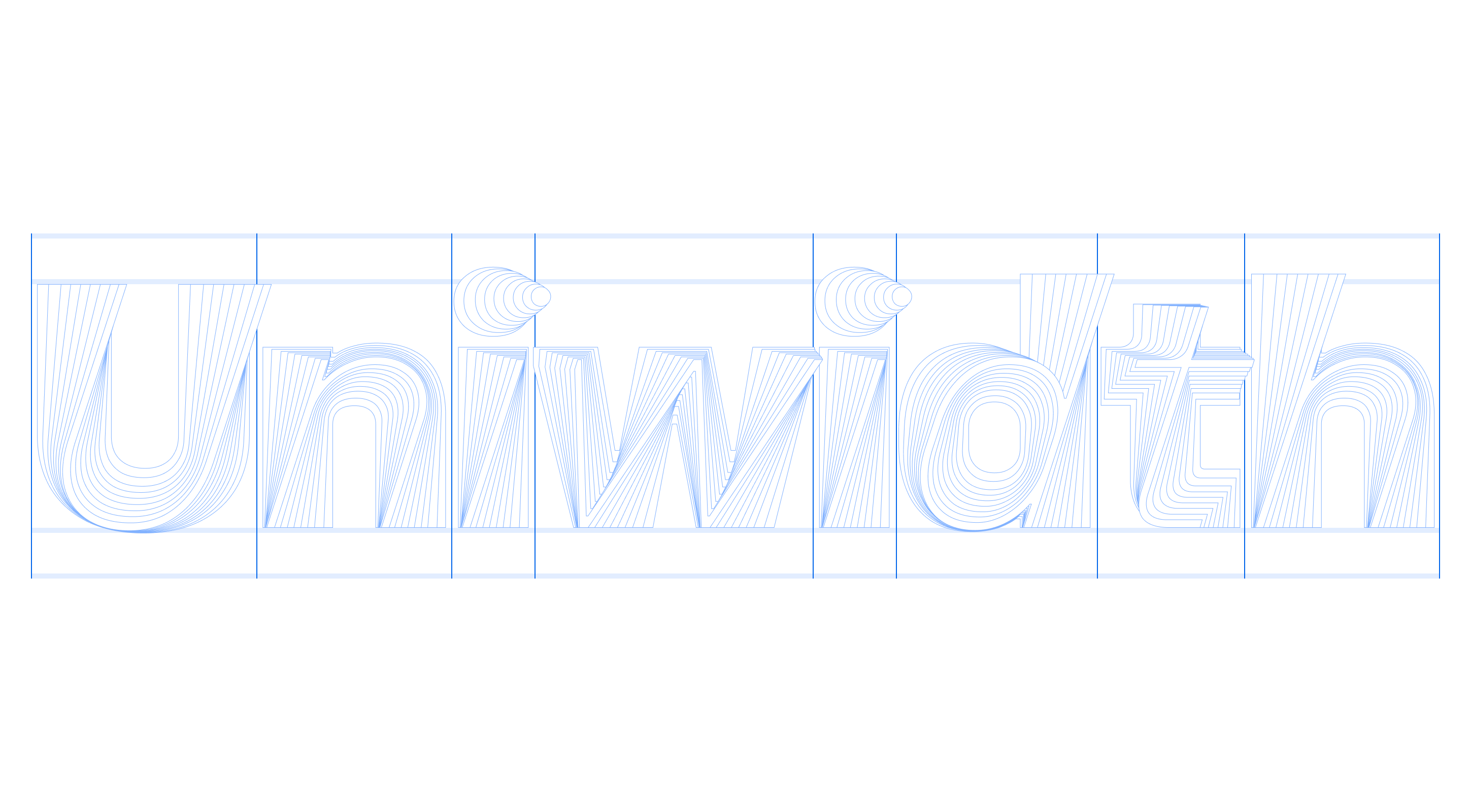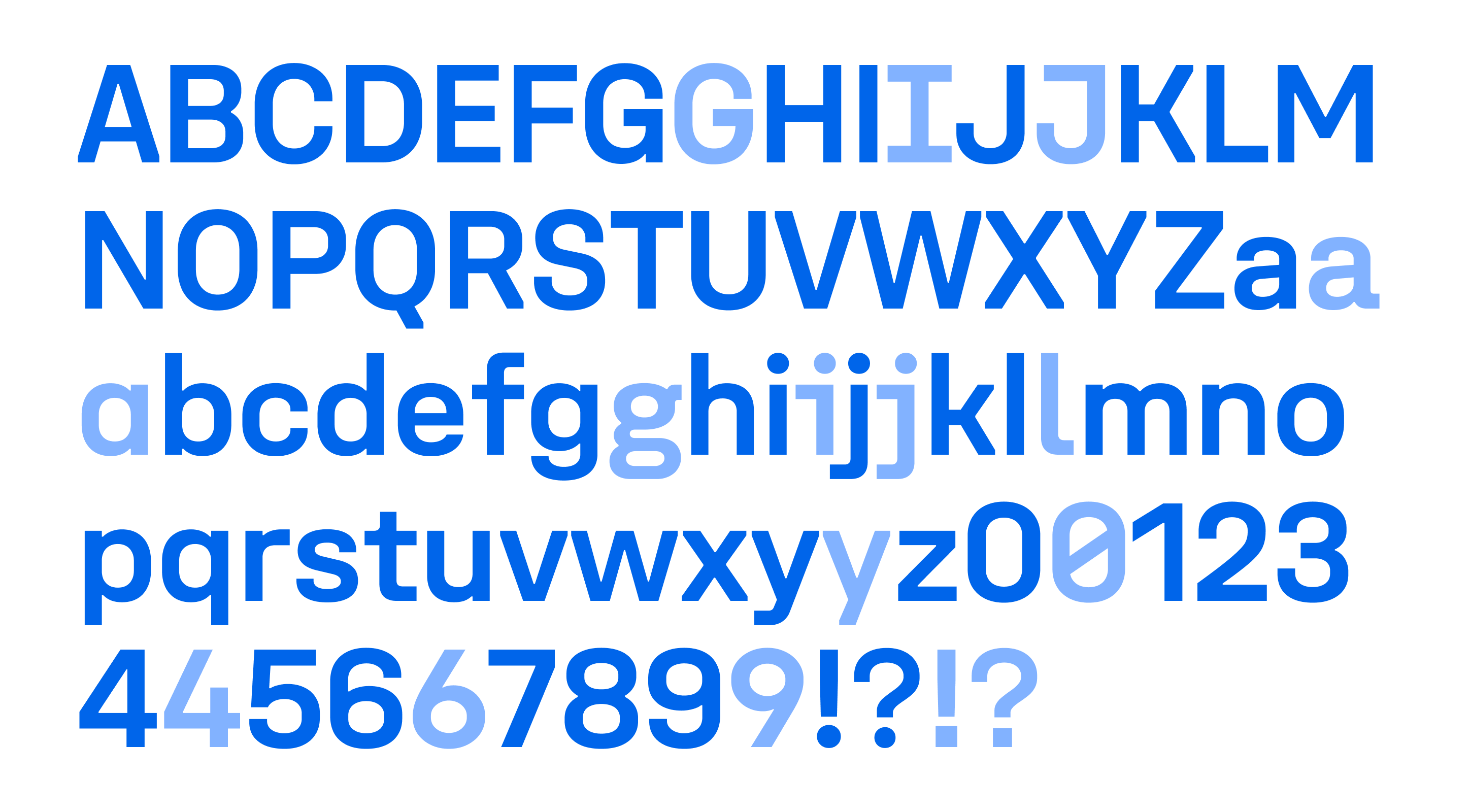
Unifora Standard Collection
Full character set of Unifora Standard, the default width of the uniwidth variable sans-serif family. Shows uppercase, lowercase, figures, punctuation, all 11 character alternates, and 3 stylistic sets including square and round punctuation
Wireframe overlay of the word "Uniwidth" in Unifora Standard across all nine weights from Thin to Black. Every character keeps its exact width as weight changes — the foundational uniwidth property that makes Unifora stable in UI and product design
Close-up of Unifora's lowercase "o" with bezier construction points visible, showing the straight segments on round glyphs. This signature design detail gives Unifora its industrial character and distinguishes it from purely geometric sans-serifs
Diagram illustrating Unifora's corner cuts on diagonal terminals, shown with scissor marks around the word "New York". The cuts carve breathing room where uniwidth spacing would otherwise cause angled strokes to collide at intersections
Unifora OpenType features: stylistic sets, square punctuation, high-legibility, open six and nine; character alternates for I, J, G, a, g, i, j, l, y, 4; ligatures, ordinals, slashed zero, tabular figures, and case-sensitive forms
Unifora Standard is the default width—100% proportions, the axis midpoint, and the clearest expression of what the Unifora uniwidth variable sans-serif superfamily is built to do. This is Unifora at its intended reading rhythm: industrial in character, architecturally precise, without the compression of the narrower widths or the expanded presence of the wider ones.
Standard works at every scale, from small UI labels and body copy to large editorial headlines, without requiring optical correction at either end. It is the right starting point for most design systems: general-purpose product interfaces, editorial layouts, brand typography, and technical documentation.
The uniwidth principle means that within Standard, every glyph holds its advance width across all nine weights and the full ±18° slant range—animated or weight-responsive text becomes a matter of CSS, not layout engineering.
Unifora Standard comes with 9 weights and matching italic and retalic styles with slants up to 18°. The variable font includes two axes: weight and slant.